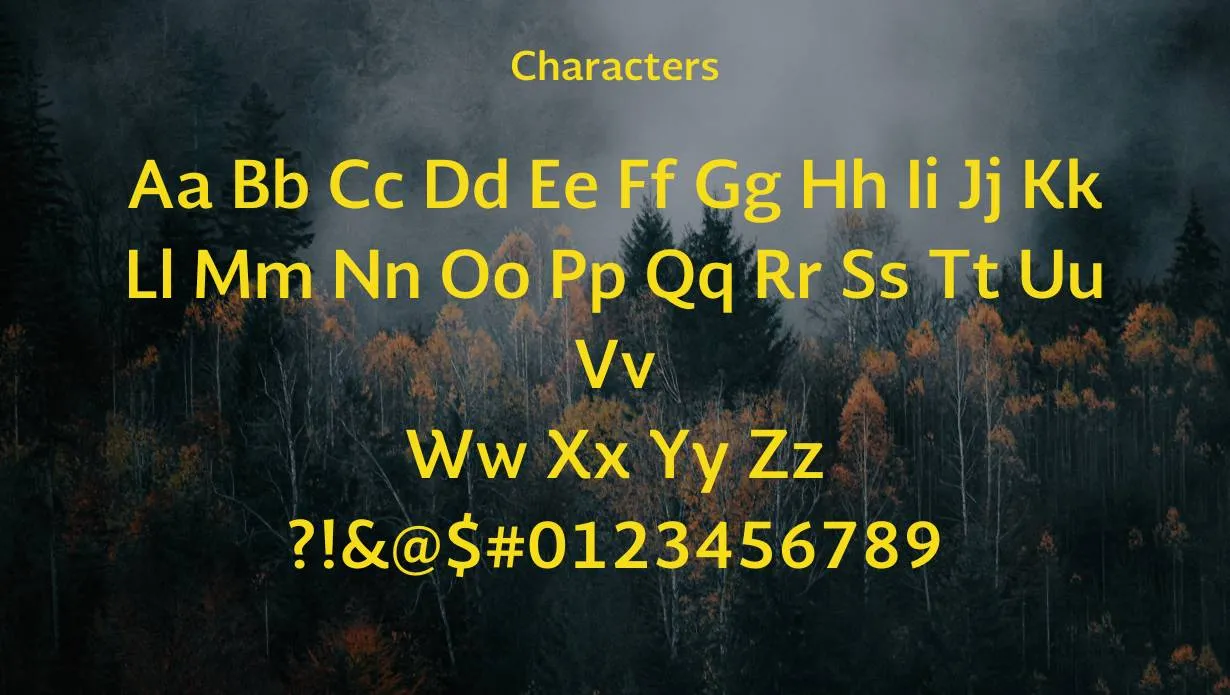
Soberana Sans Font Free Download
Soberana Sans Font is a clean and modern typeface known for its simplicity and elegance. The font’s sans-serif design gives it a contemporary and sophisticated look, making it suitable for a wide range of applications.
Whether you’re designing a business presentation, a website, or any project that demands clarity and a modern aesthetic, Soberana Sans Font is a versatile choice that ensures readability and a professional appearance.
Soberana Sans Font Info
| Name | Soberana Sans Font |
| Designer | Cristobal Henestrosa & Raul Plancarte |
| Style | Sans Serif |
- Soberana Sans Regular
- Soberana Sans Light
- Soberana Sans Medium
- Soberana Sans Bold
- Soberana Sans Extra Bold